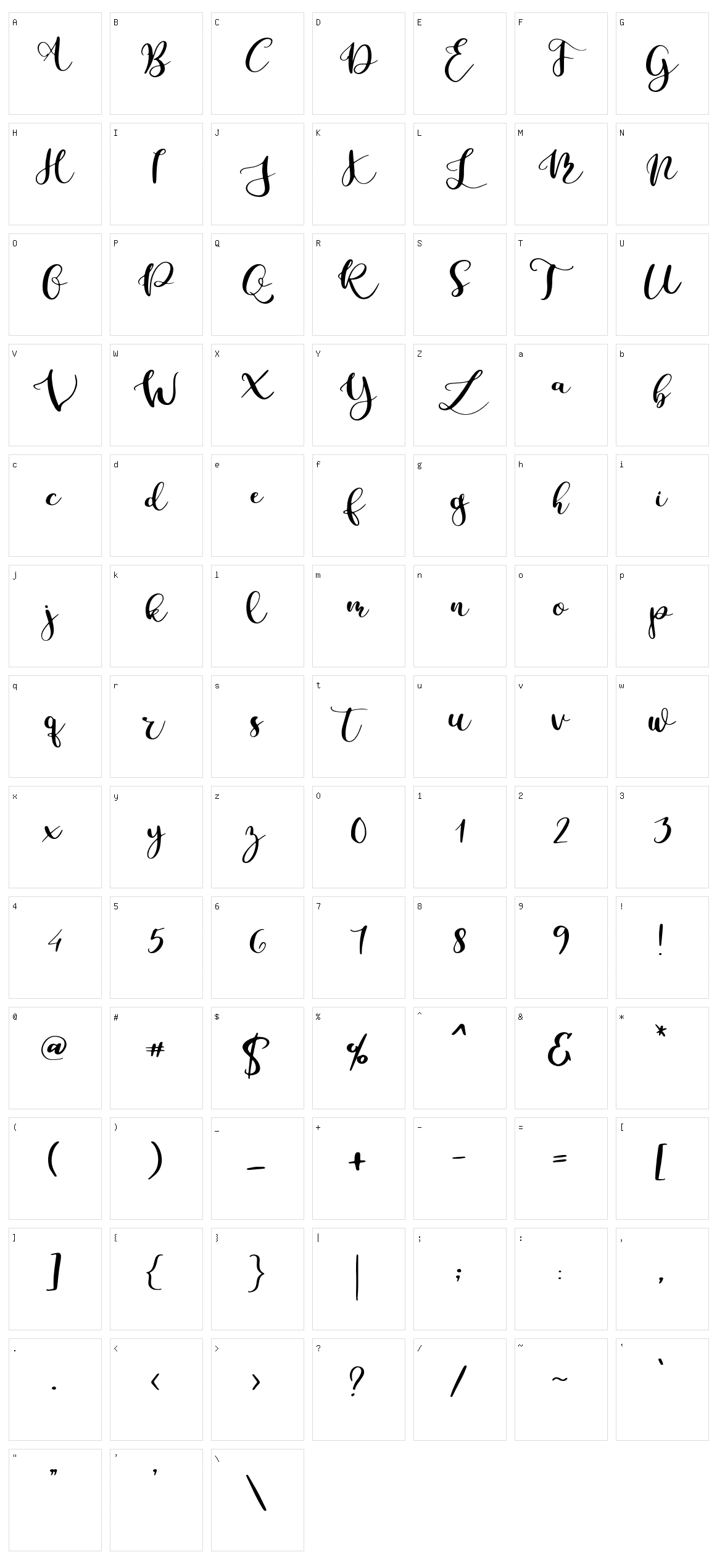
The free font Parabellum is carefully designed by https://thehungryjpeg.com/product/4303204-146-in-1-font-bundle-super-sale, showcasing a thoughtful balance of creativity and usability and falls under the Script font style. When you download the ZIP file, it contains only 175.03 KB of font files, making it lightweight and quick to download. Please review the license details below to understand permitted usage and distribution rights. If license information is not available, we recommend using this font for personal projects only or contacting the author directly for commercial usage permissions.